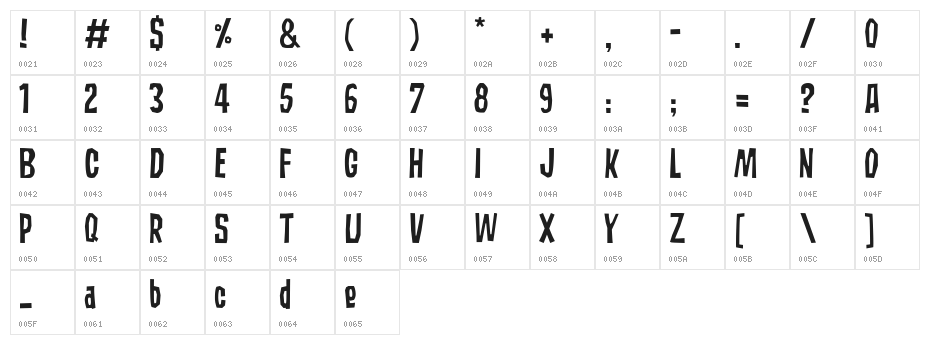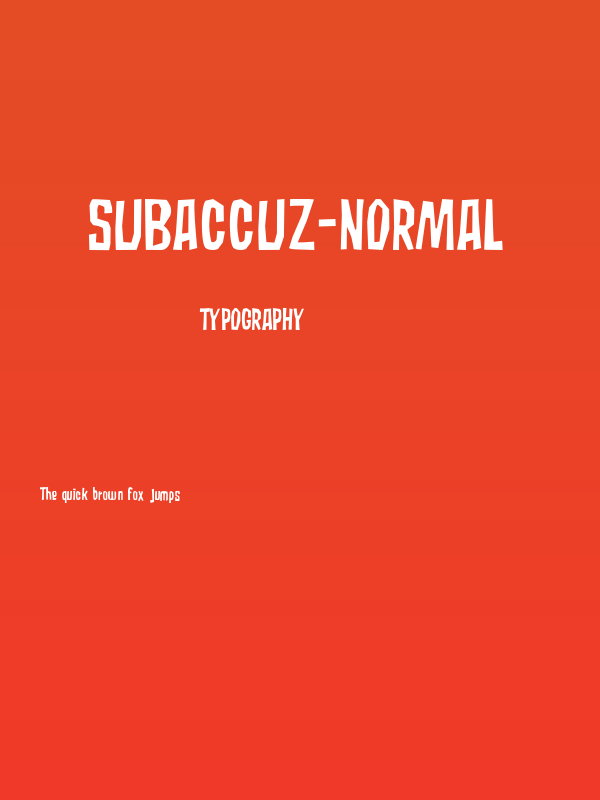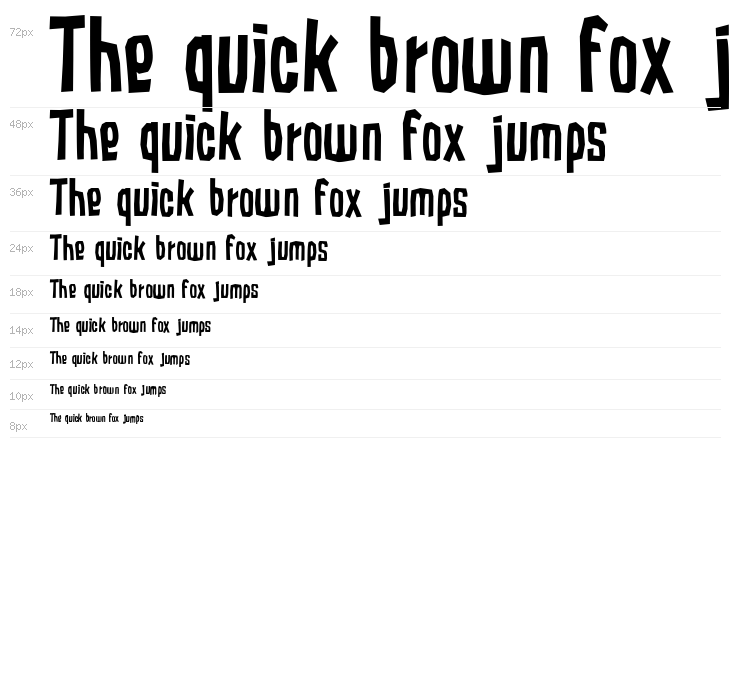
Subaccuz-Normal Font
Subaccuz-Normal Description
This font features a bold and dynamic style with a slightly distorted, angular appearance. The characters have a hand-drawn quality, giving them a unique and artistic flair. The uppercase letters are tall and commanding, while the lowercase letters maintain a consistent style with a slightly more compact form. Numbers and special characters follow the same bold and distinctive design, making them stand out. The overall look is modern and edgy, suitable for projects that require a strong visual impact.
Overall StyleModern, Artistic
Proposed ProjectsIdeal for posters, album covers, branding, and any project needing a bold, artistic touch.